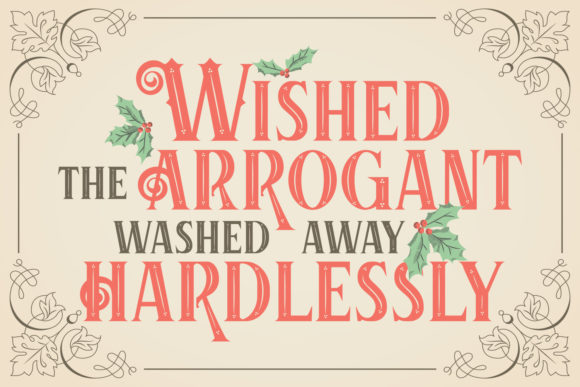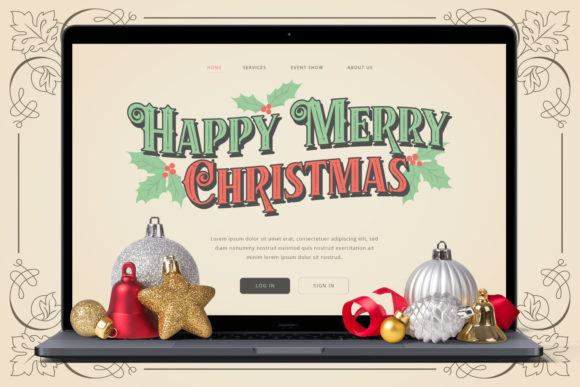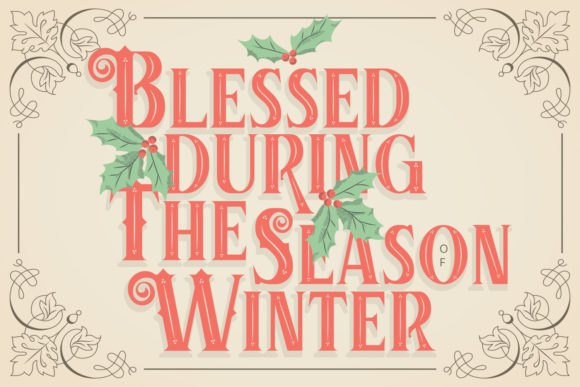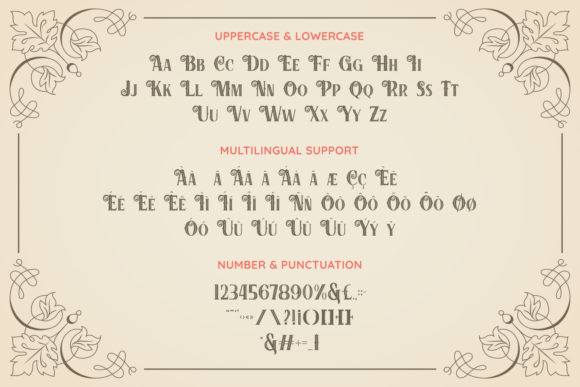
Borian Font: Elevate Your Designs with Elegance and Boldness
In the world of typography, a font can make or break a design. It’s the foundation upon which the entire visual identity is built. For designers and crafters, finding the perfect font can be a daunting task. However, if you’re looking for a font that exudes elegance and boldness, look no further than Borian Font. In this article, we’ll dive into the world of Borian Font, exploring its features, benefits, and uses.
What is Borian Font?
Borian Font is a serif font that boasts an elegant and bold design. Its classic serif structure is perfect for creating visually stunning designs that demand attention. The font’s unique blend of sophistication and playfulness makes it an excellent addition to any font library.
Key Features of Borian Font
- Elegant and Bold Design: Borian Font’s serif structure gives it a classic and sophisticated look that’s perfect for designs that require a touch of elegance.
- Versatility: This font is versatile and can be used for a wide range of design projects, from logos and branding to packaging and advertising.
- High Readability: Borian Font is designed to be highly readable, making it perfect for body text, headings, and titles.
- Unique Character: The font’s unique character and charm make it stand out from other serif fonts, giving your designs a distinctive look.
Benefits of Using Borian Font
So, why should you choose Borian Font for your design projects? Here are just a few benefits of using this incredible font:
- Elevate Your Designs: Borian Font has the potential to elevate any design, giving it a touch of elegance and sophistication.
- Stand Out from the Crowd: With its unique character and charm, Borian Font can help your designs stand out from the crowd and grab attention.
- Save Time: With Borian Font, you can create stunning designs quickly and easily, saving you time and effort.
- Perfect for Branding: The font’s versatility and elegance make it perfect for branding and logo design, helping you create a consistent visual identity.
Uses of Borian Font
Borian Font is a versatile font that can be used for a wide range of design projects, including:
- Logo Design: Create stunning logos that demand attention with Borian Font.
- Branding: Use Borian Font to create a consistent visual identity for your brand.
- Packaging Design: Add a touch of elegance to your packaging designs with Borian Font.
- Advertising: Use Borian Font to create eye-catching ads that grab attention.
- Web Design: Use Borian Font to create stunning website designs that showcase your brand’s personality.
In conclusion, Borian Font is an elegant and bold serif font that’s perfect for designers and crafters looking to elevate their designs. With its unique character, versatility, and high readability, Borian Font is an excellent addition to any font library. Whether you’re creating logos, branding, packaging, or advertising designs, Borian Font is sure to impress. So, why wait? Add Borian Font to your collection today and take your designs to the next level!
- What is Borian Font?: Borian Font is a serif font that boasts an elegant and bold design.
- Is Borian Font suitable for body text?: Yes, Borian Font is highly readable and suitable for body text.